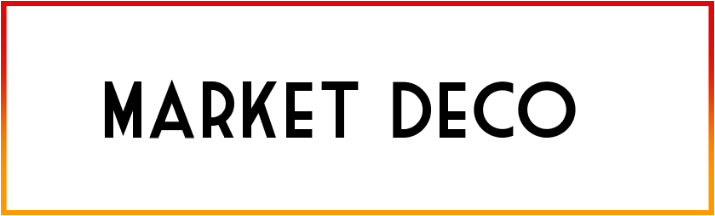
Market Deco
Market Deco is a fancy font designed by Steve Ferrera (2011). Bold and full of character, it's built to stand out rather than blend in. You can download it for free and test it with your own words in the preview above.
What You Can Type With Market Deco
You get every letter from A to Z in both cases and all the numbers from 0 to 9, which means Market Deco can handle full sentences, dates and prices. Common punctuation such as &, !, ? and @ is included as well. It also has the accented letters you need for Spanish, French, German, Portuguese and Italian. On top of that, it includes Greek and Cyrillic characters.
Where Market Deco Works Best
Designers usually reach for fonts like Market Deco when they're making posters, logos and eye-catching headlines. Use it for one standout word or headline and let simpler fonts handle the rest.
Who designed Market Deco font?
Does Market Deco support accented letters?
Yes. Market Deco includes the accented letters needed for Spanish, French, German, Portuguese and Italian, so it works for more than just English.